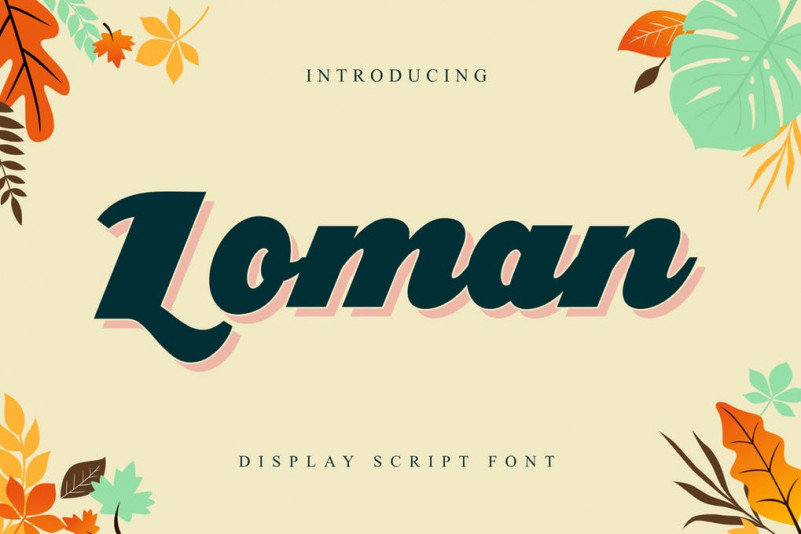
Loman Font
Loman is a display script font, this font looks funny, cute, playful, catchy and easy to use.
Loman Font is the best choice for your professional design projects, including: logo, poster design, t-shirt, headline, flyer, cd cover album, quotes, business card, branding, magazines, social media, advertisements, product designs, or something that need playful or cartoon looks.